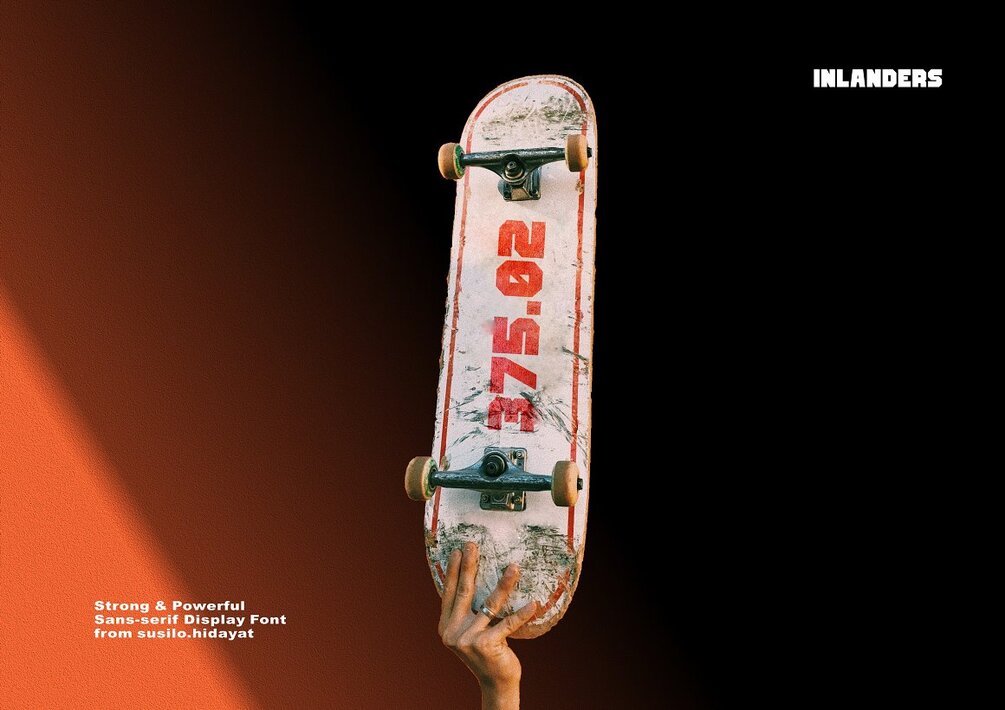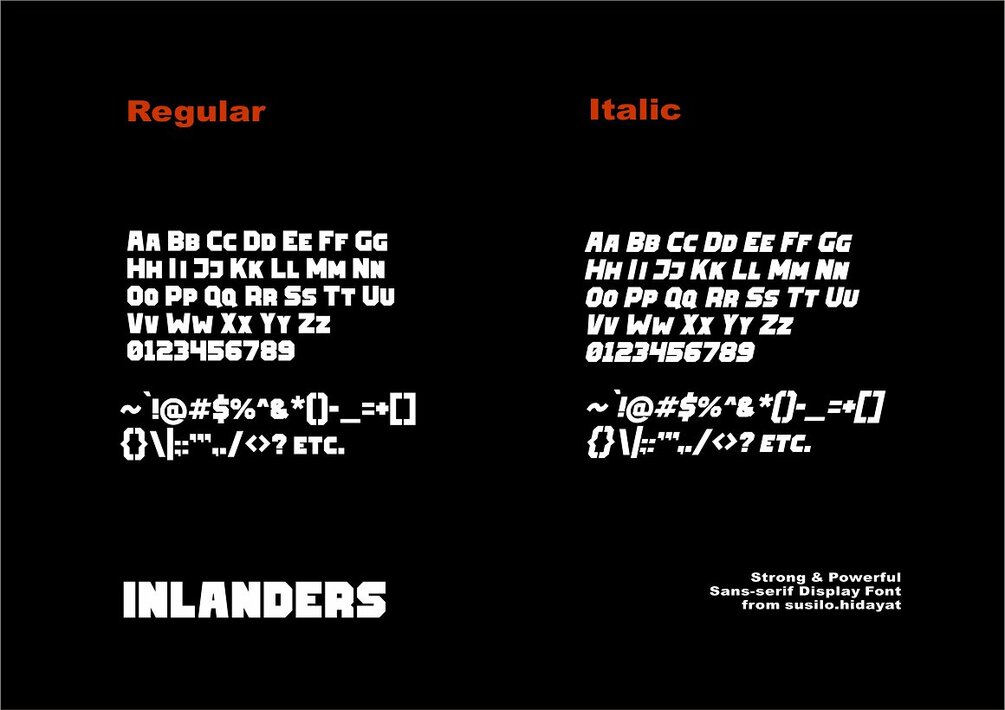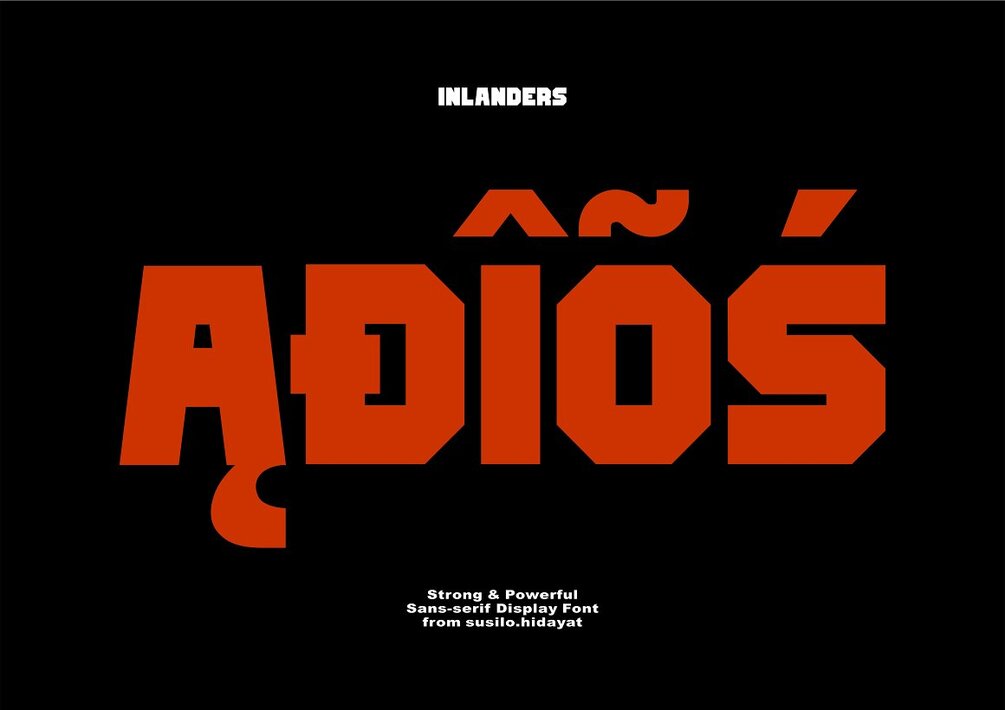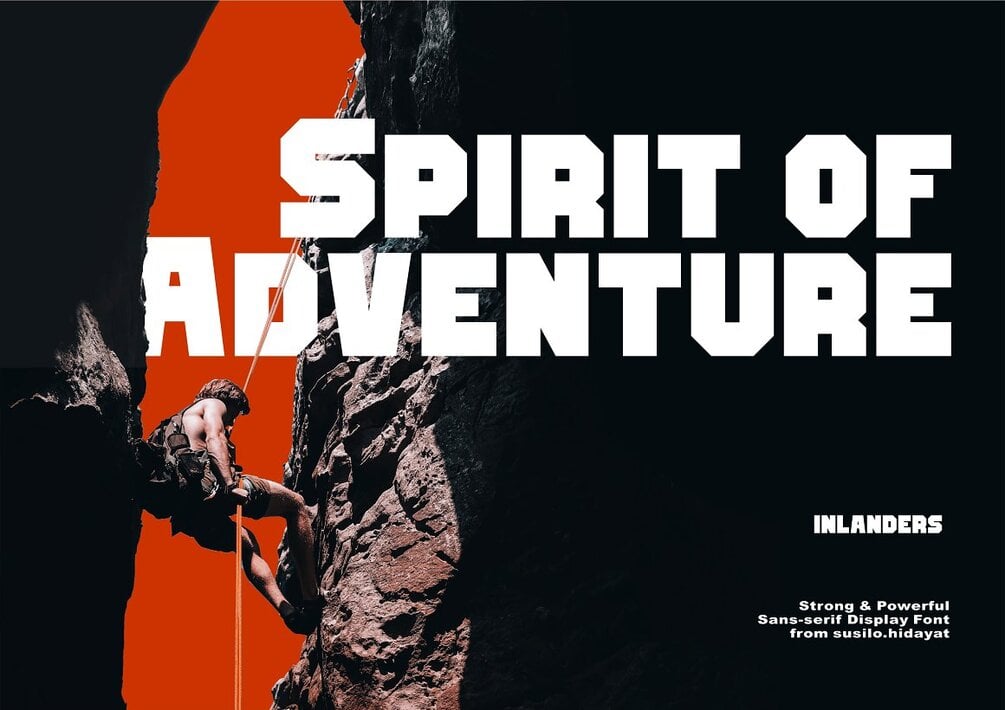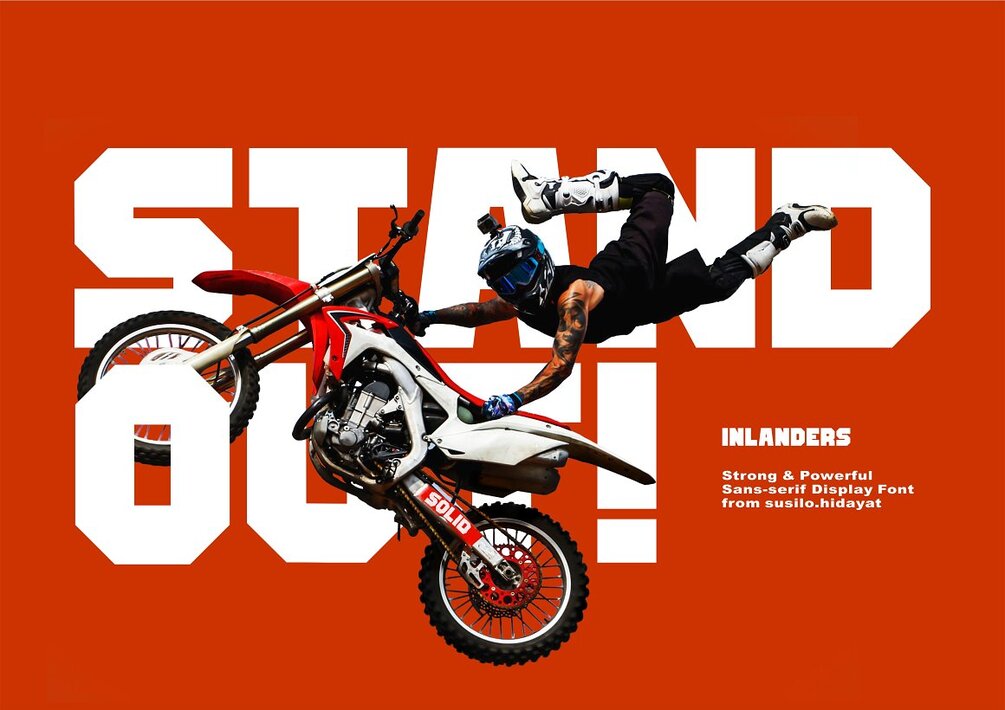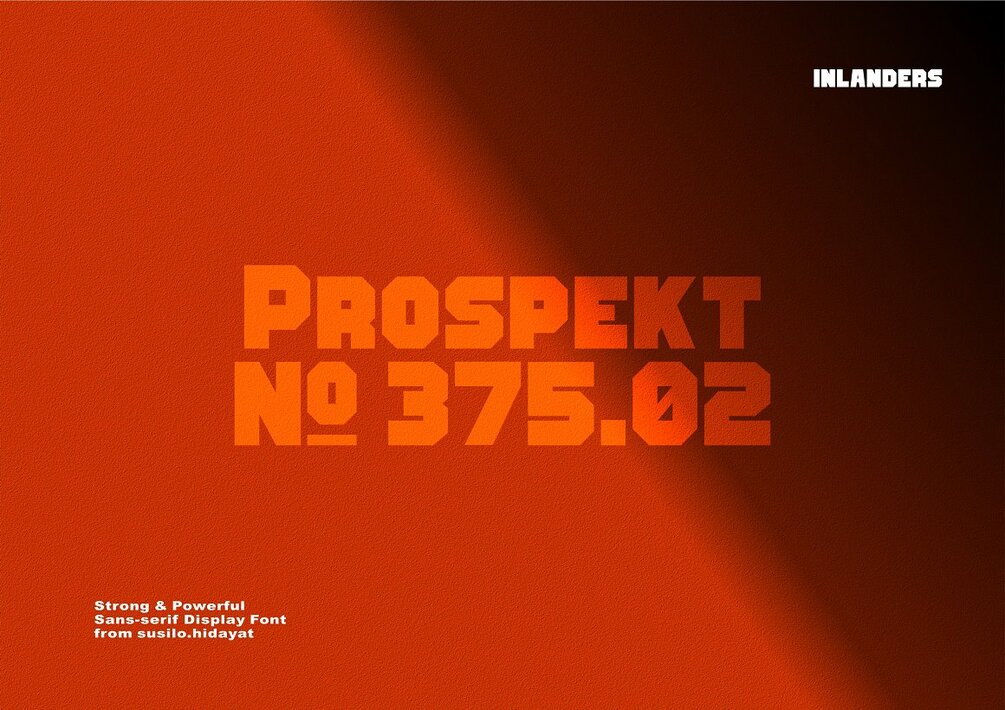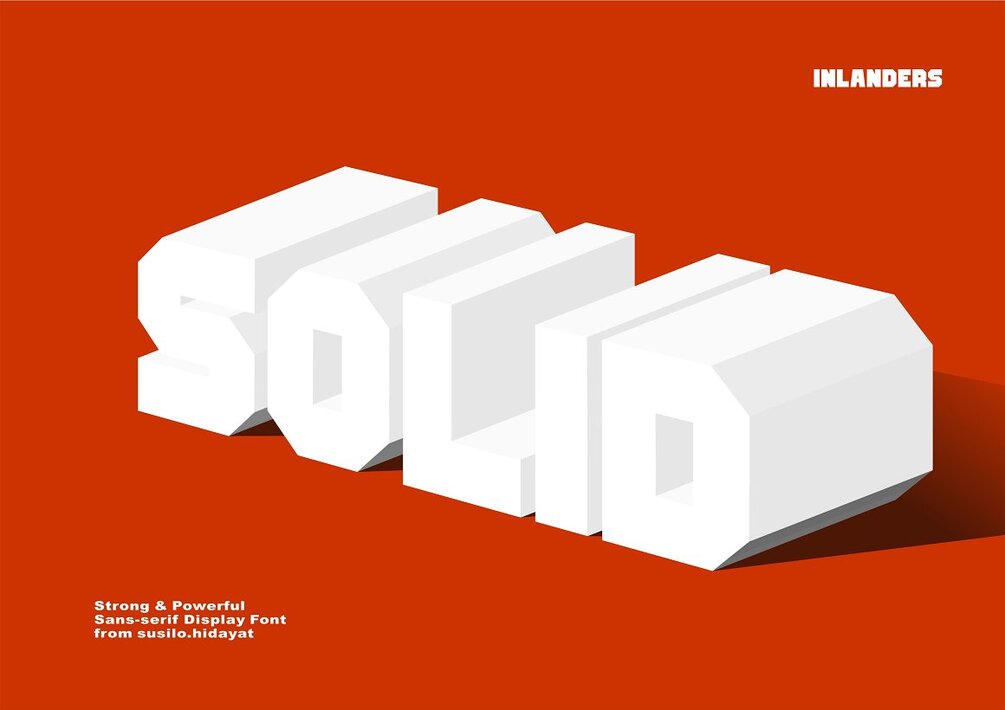
INLANDERS HEAVY BLOCK Typeface
Introducing INLANDERS Sans-Serif Display font.
INLANDERS a strong and powerful look typeface. Provide tough, solid, and prominent impressions. INLANDERS have two styles, Regular and Italic.
INLANDERS Full version consist of 741 characters for each regular and italic style. Using Small caps to replace the lowercase character. 295 Uppercase, 305 small caps, 44 Punctuation, 64 Marks and Symbols, and the rest are digits/numerals and other characters.
Inlanders is a very versatile font, covering wide range project. Marvelous for representing extreme sports, outdoor activity, and all forms of design. Especially project that needs "toughness" and "powerful look".
Strong and Powerful Heavy block typeface (Regular + Italic version)